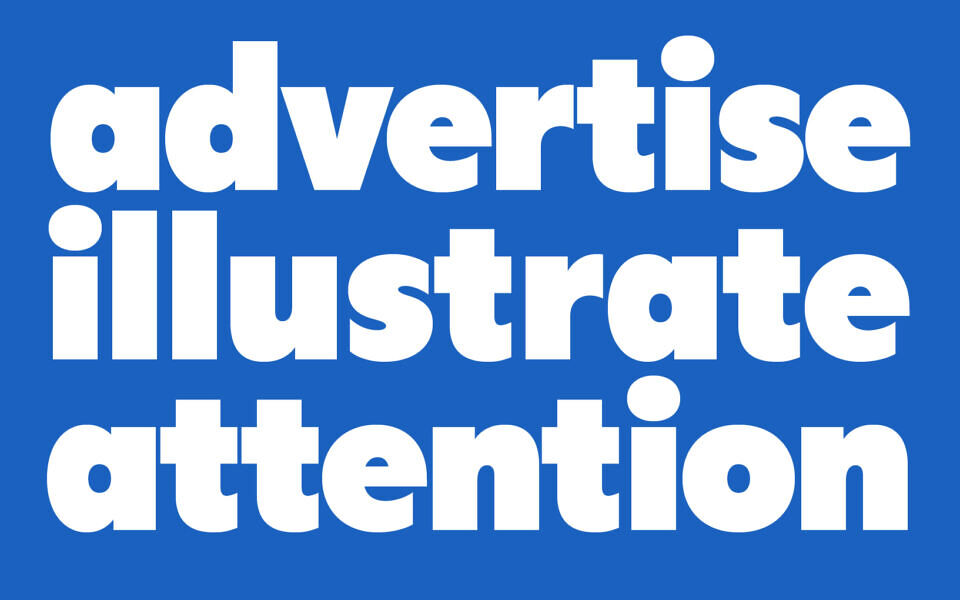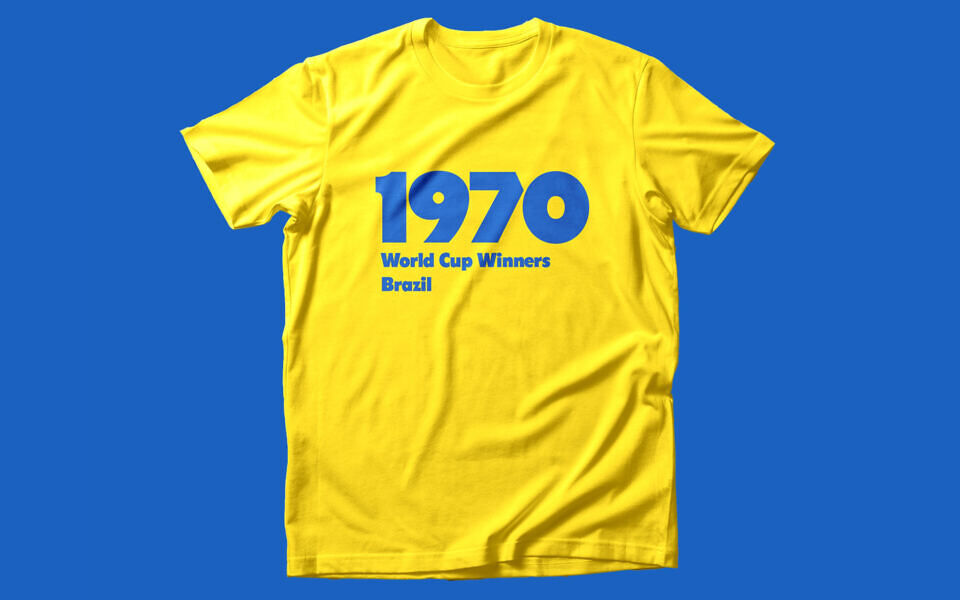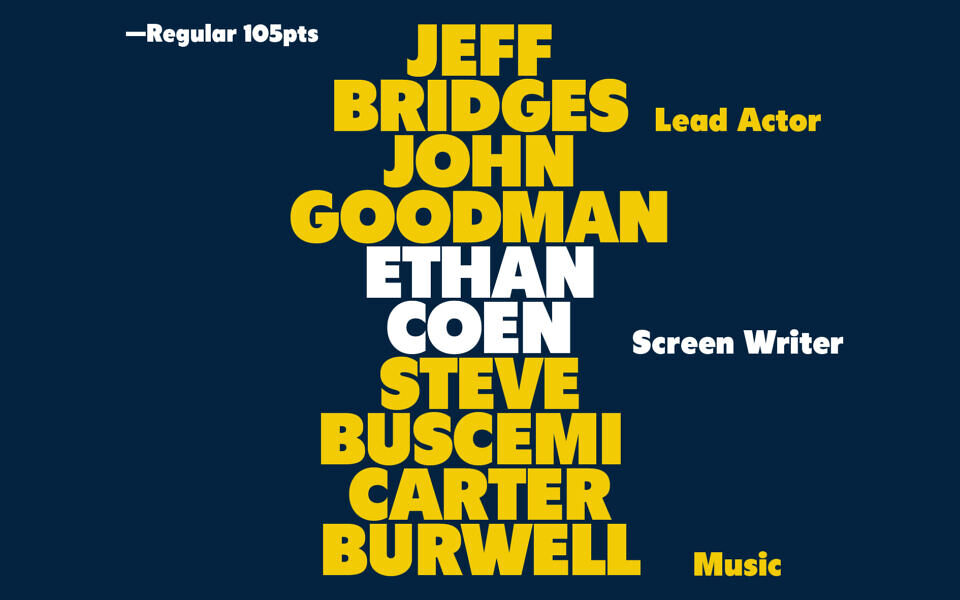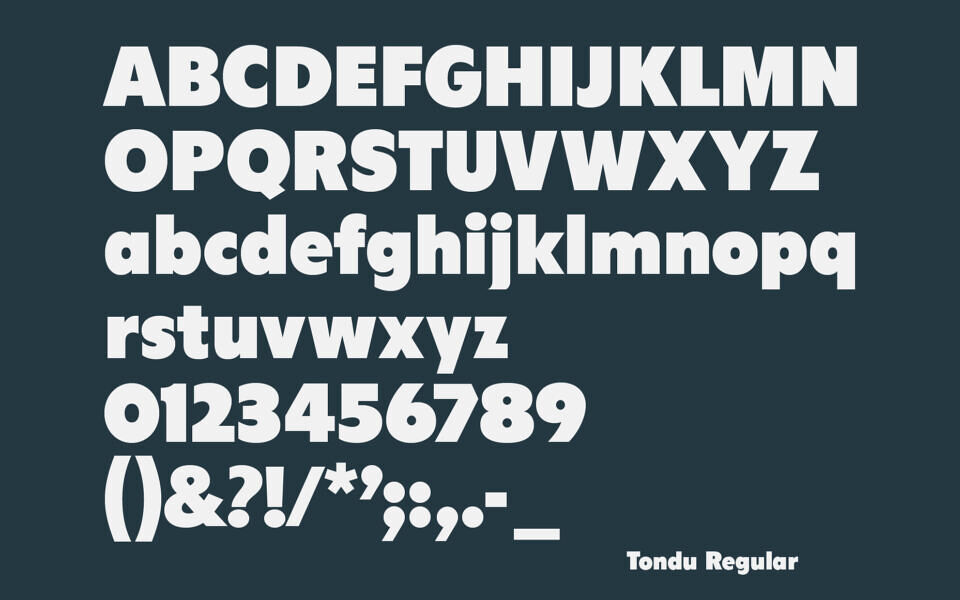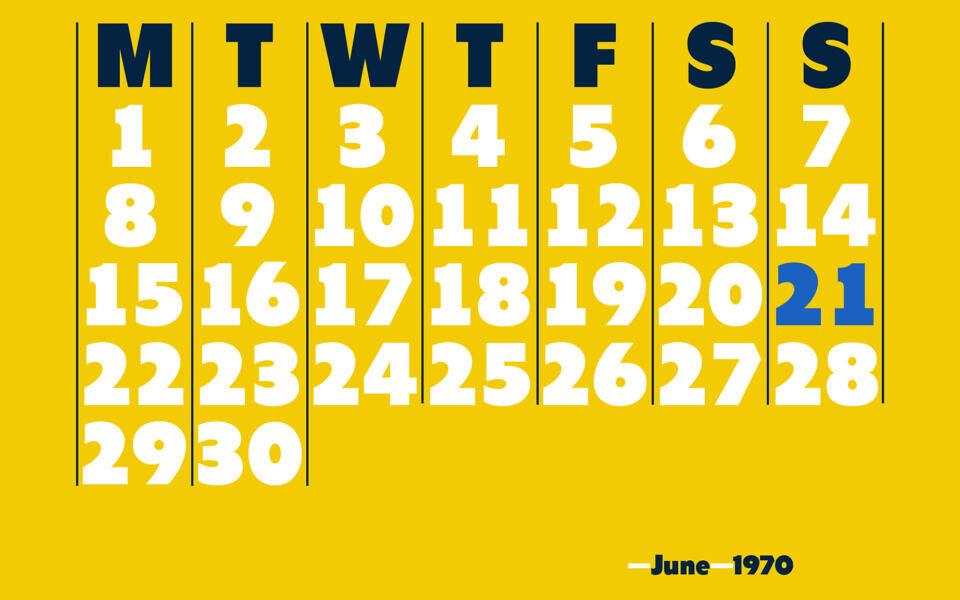
Tondu Font
Tondu is a powerful and versatile display typeface inspired by the grandeur of early 1900s film posters. Designed to make an impact, Tondu’s strong, upright forms and smooth, rounded curves create a commanding presence that’s perfect for modern design needs.
Whether crafting eye-catching apparel, designing striking billboards, or creating memorable book covers and posters, Tondu is the ideal choice. Its crisp lines and confident curves guarantee readability, while its bold design ensures your message stands out and captures attention.
Beta vs 2.0